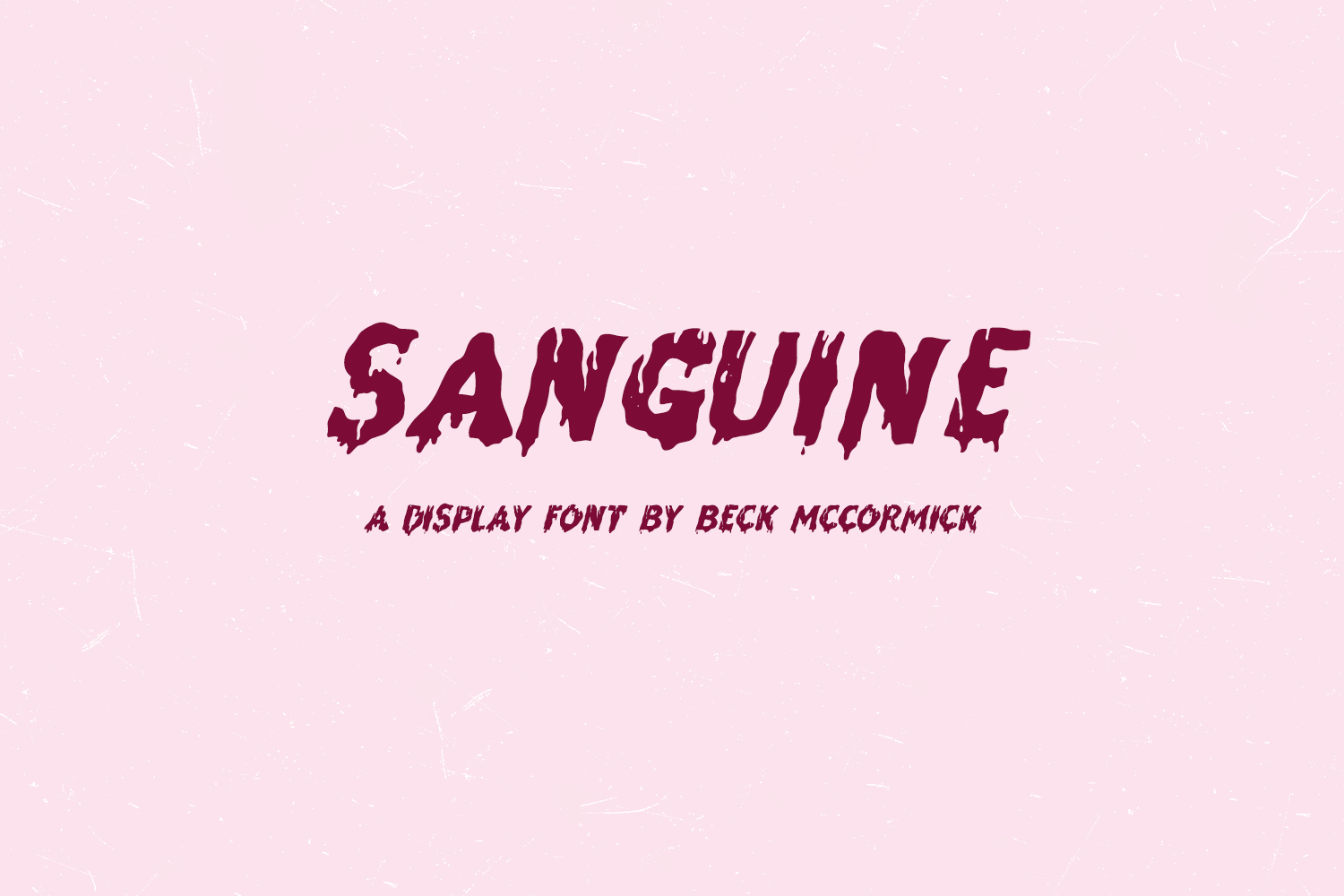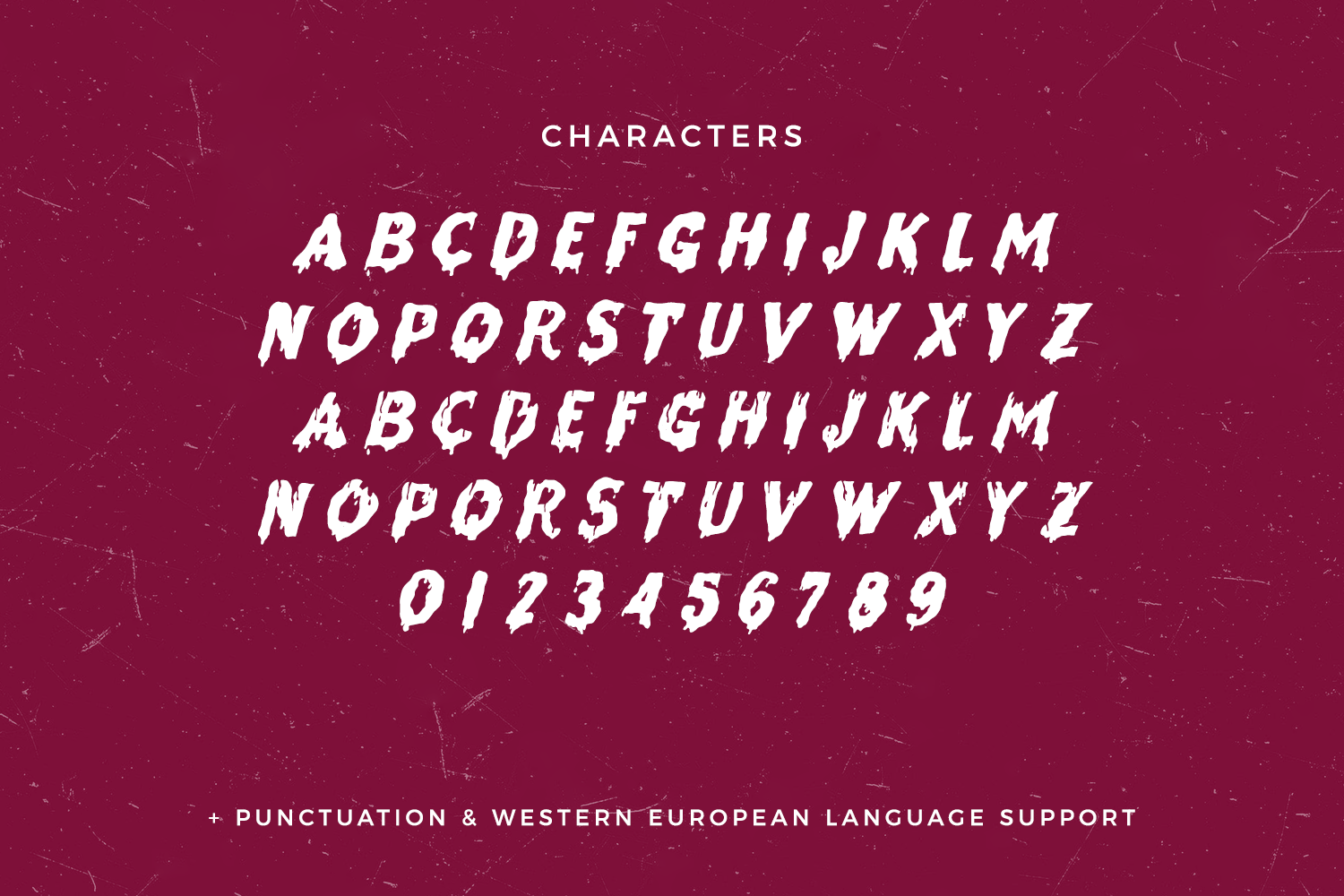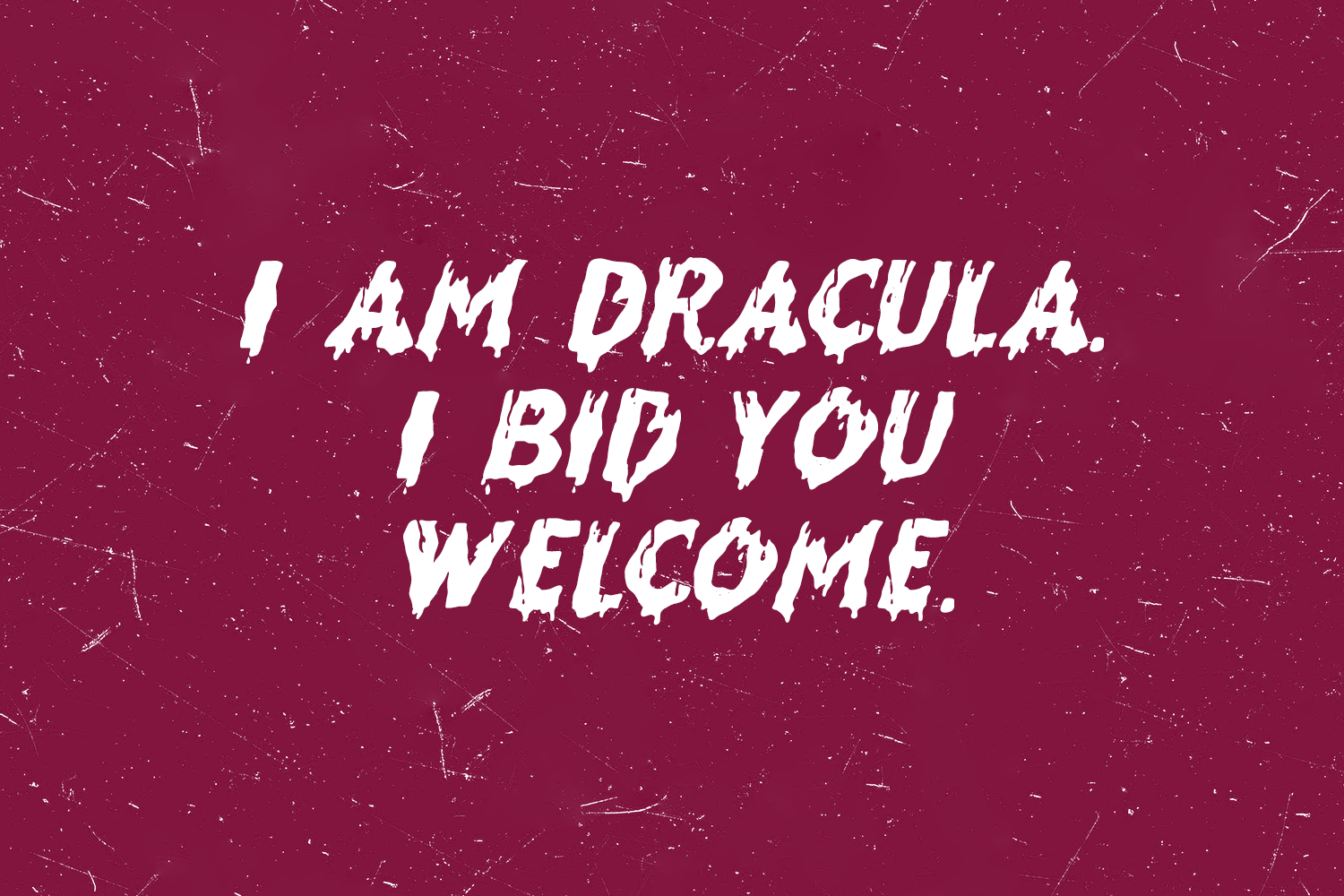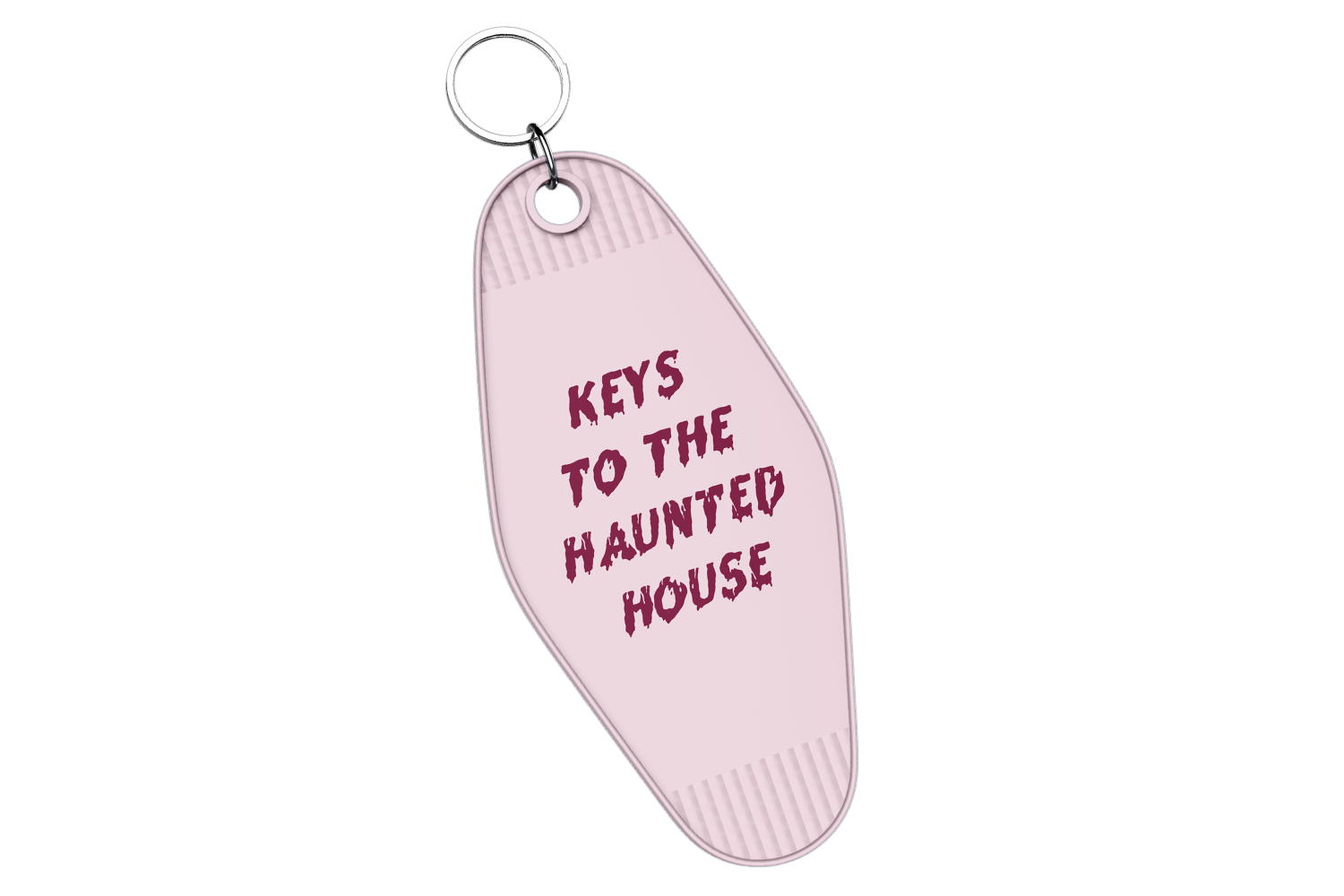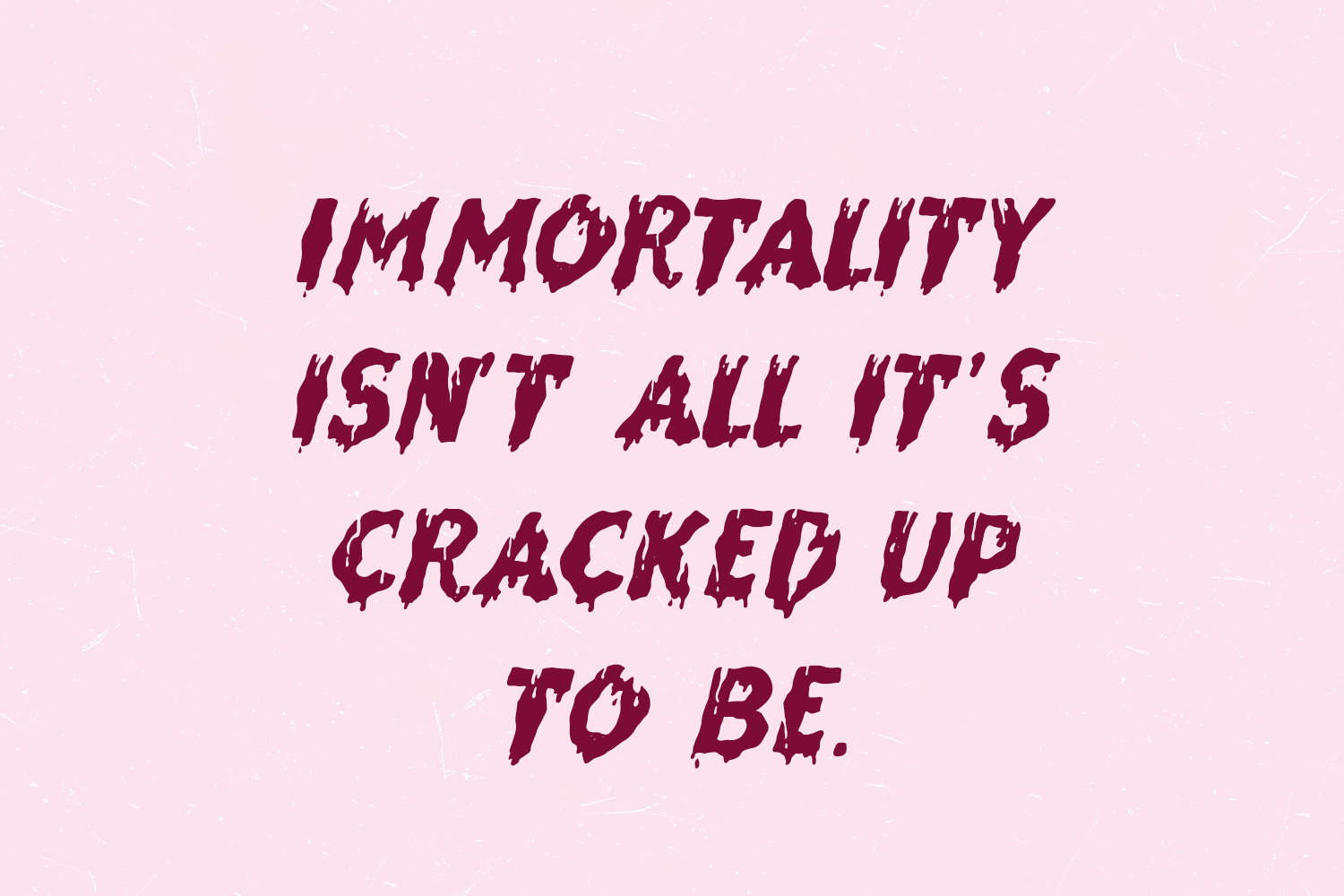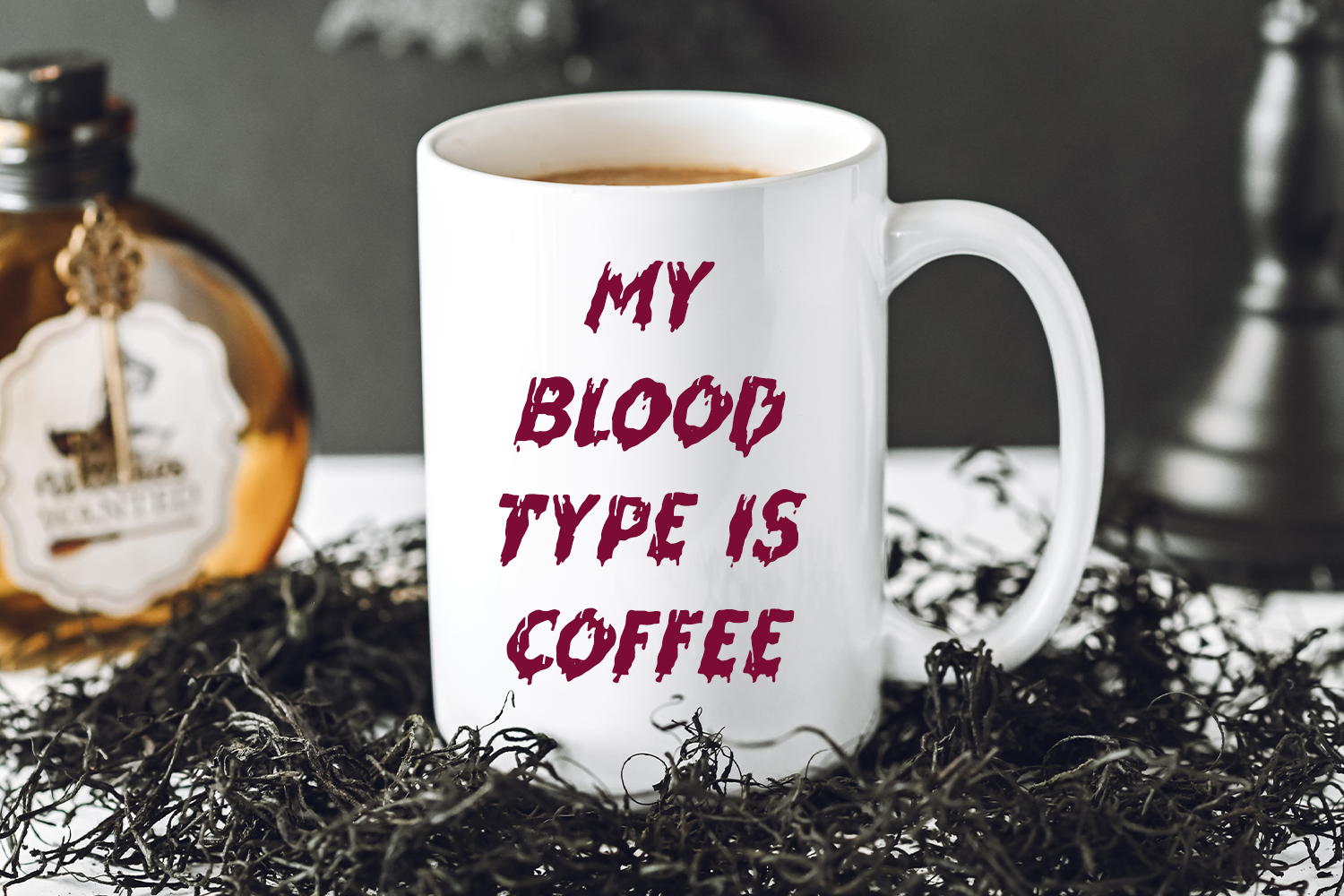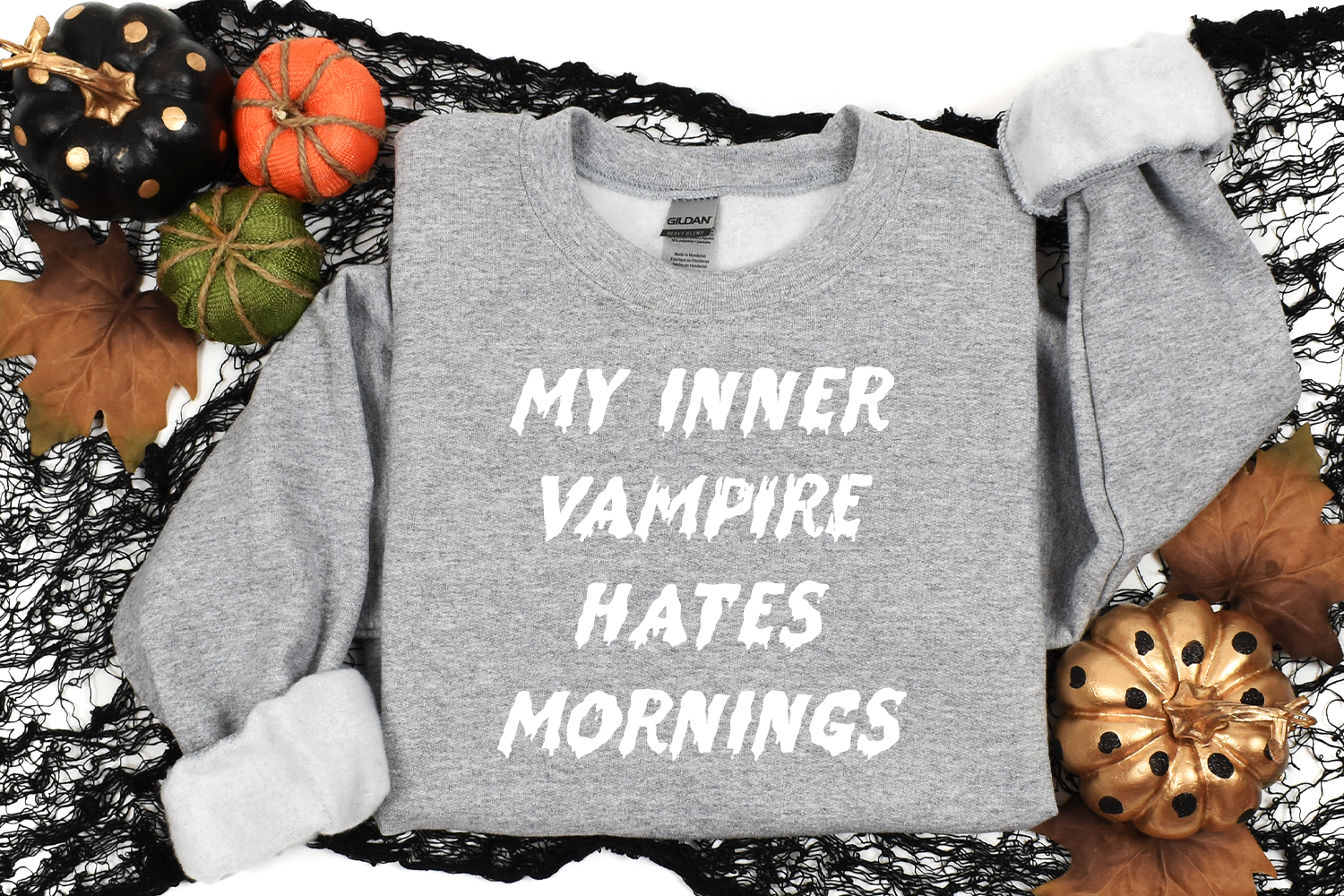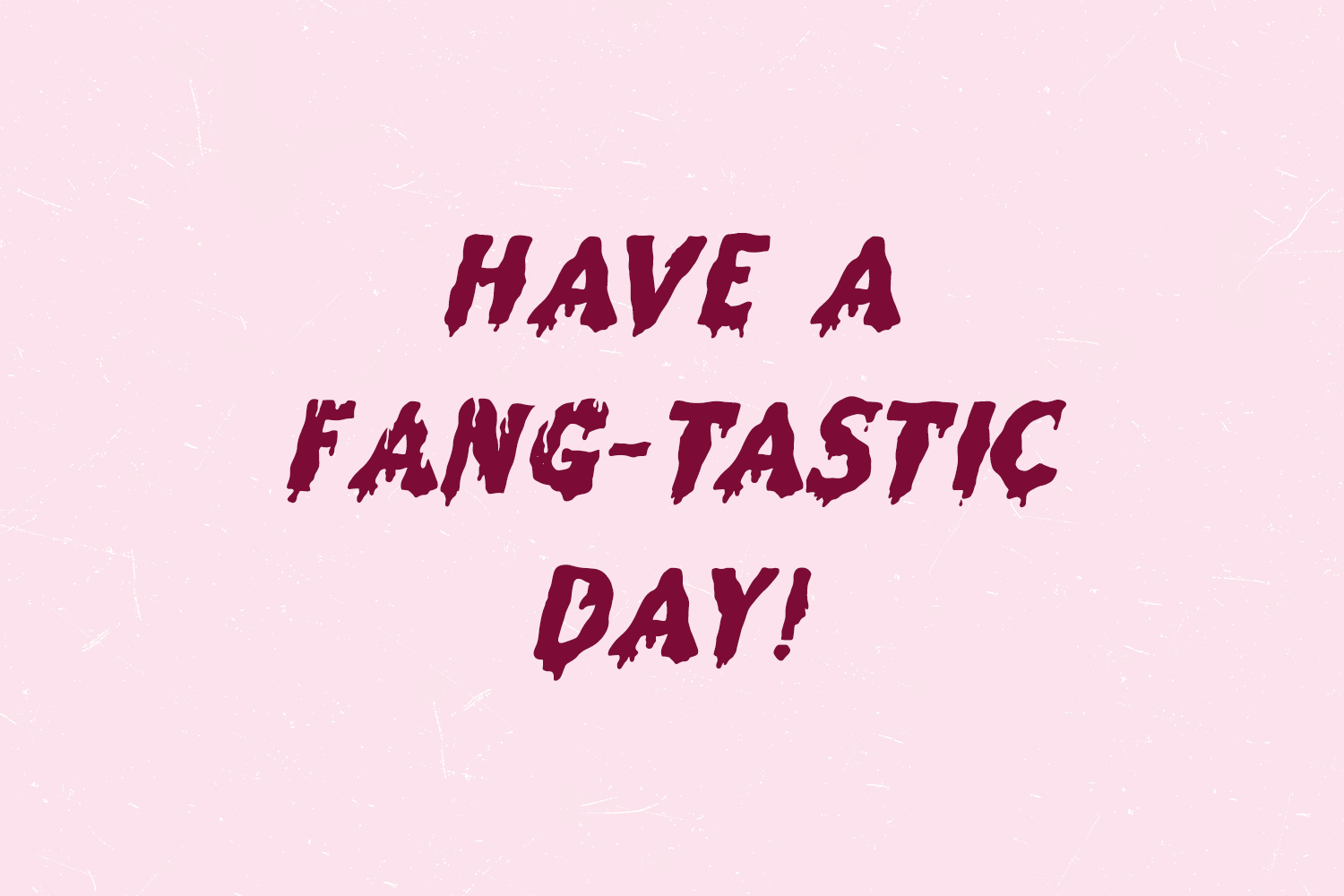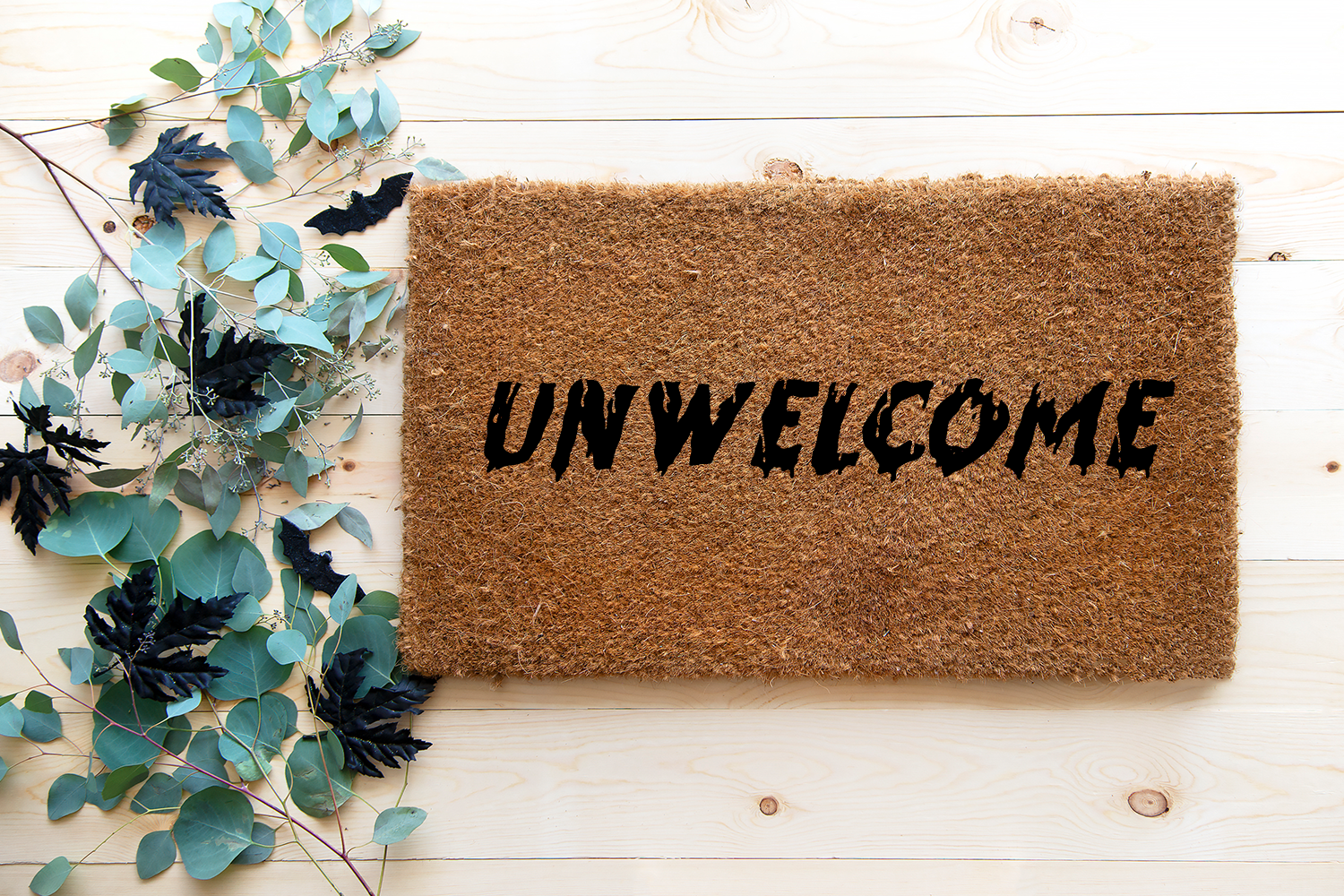
Sanguine includes:
– full upper + lowercase characters (Sanguine is all-caps, but lowercase characters feature “internal bleeding” from the top of the letter creating negative space.)
– Western European language support – English, French, Spanish, Portuguese (Brazil), Portuguese (Portugal), Italian, German (Germany), German (Austria), Dutch, Danish, Swedish, Norwegian (Bokmål and Nynorsk), Finnish, Icelandic, Irish, Welsh